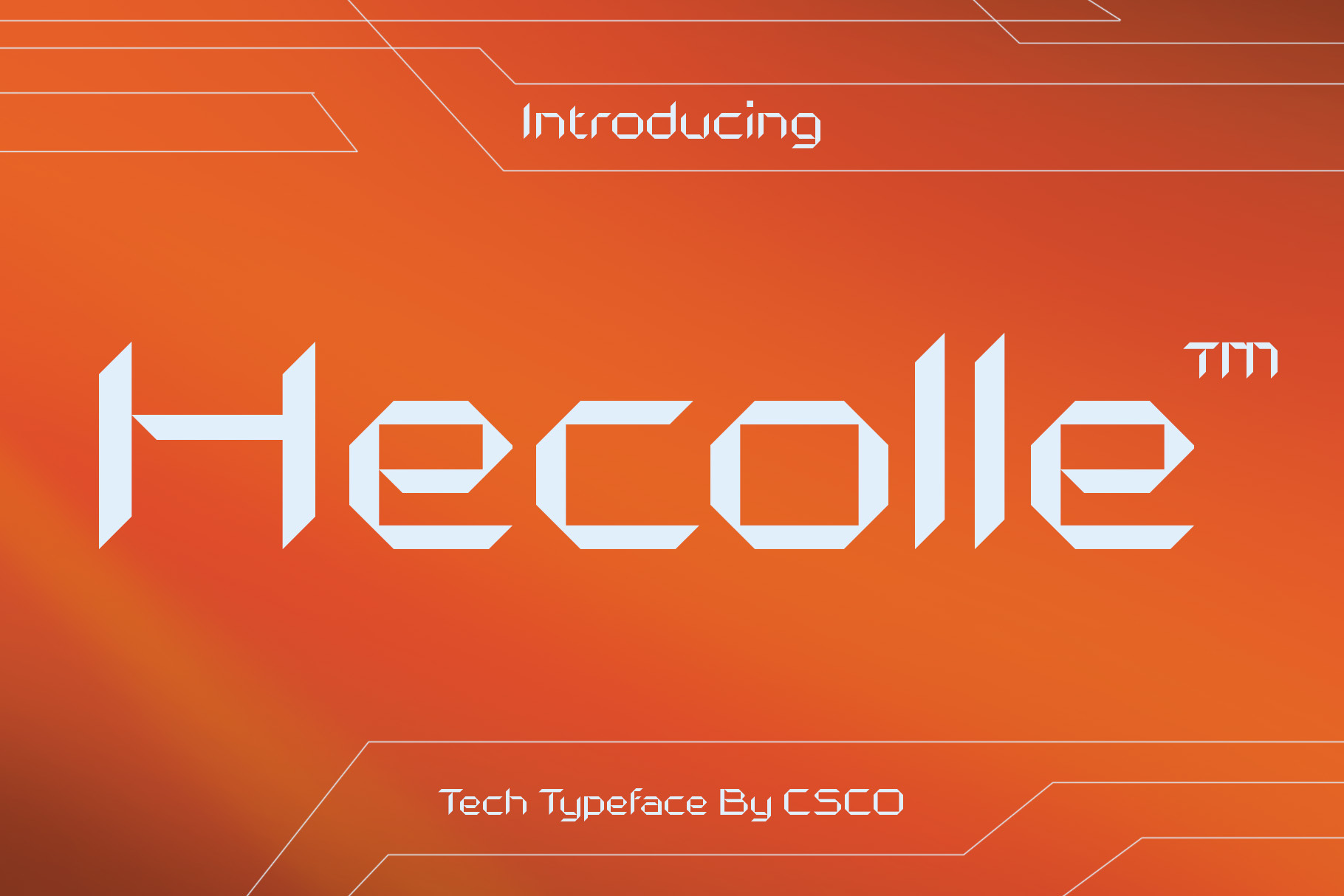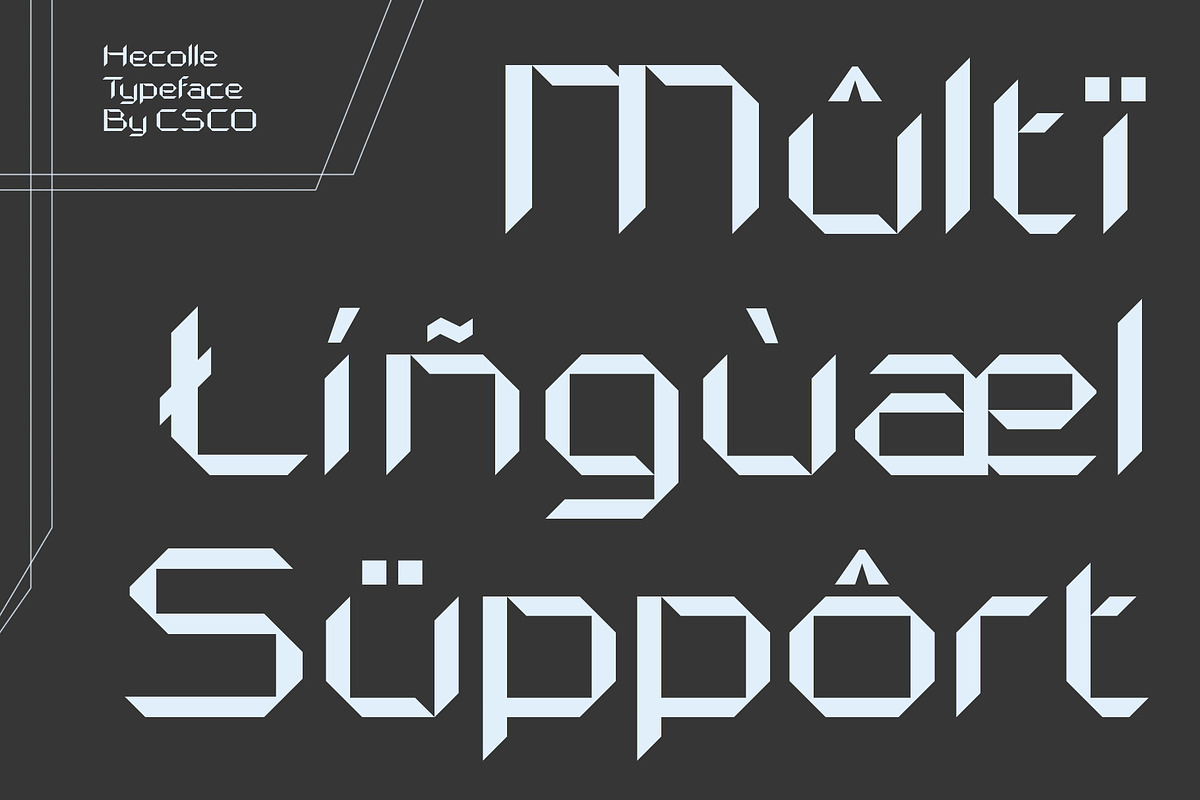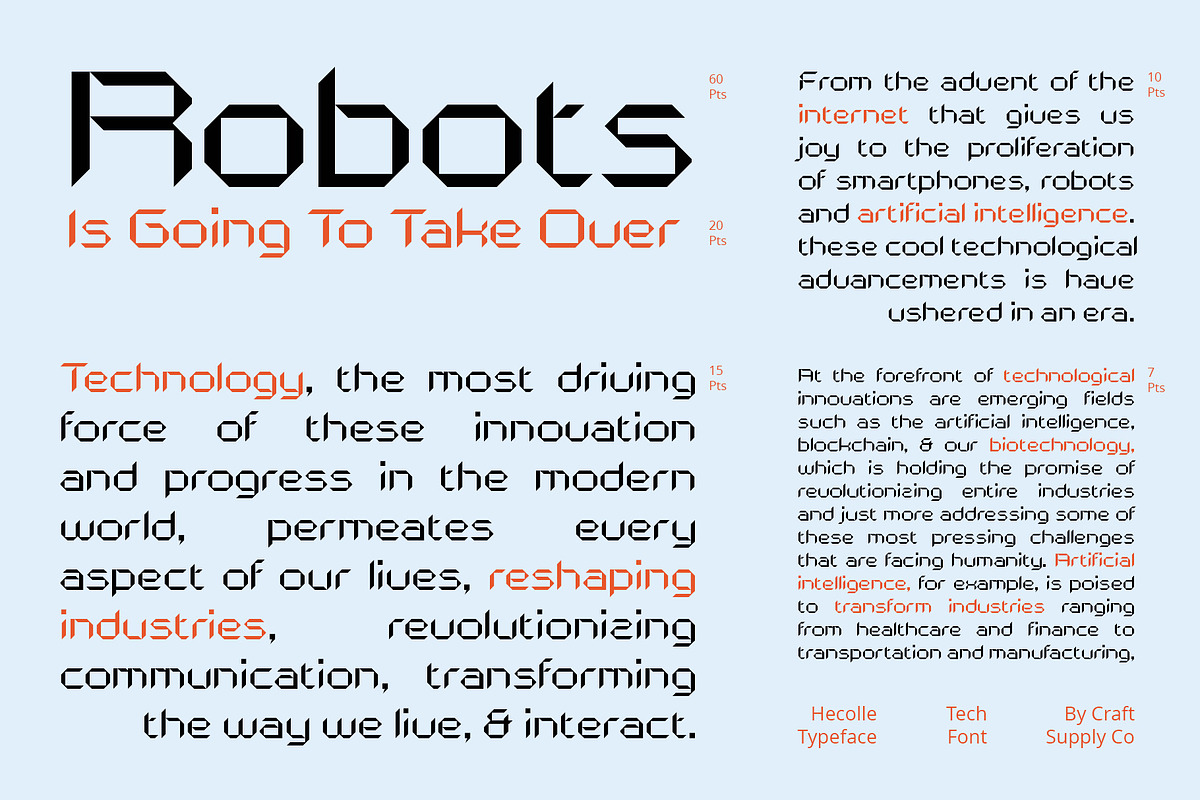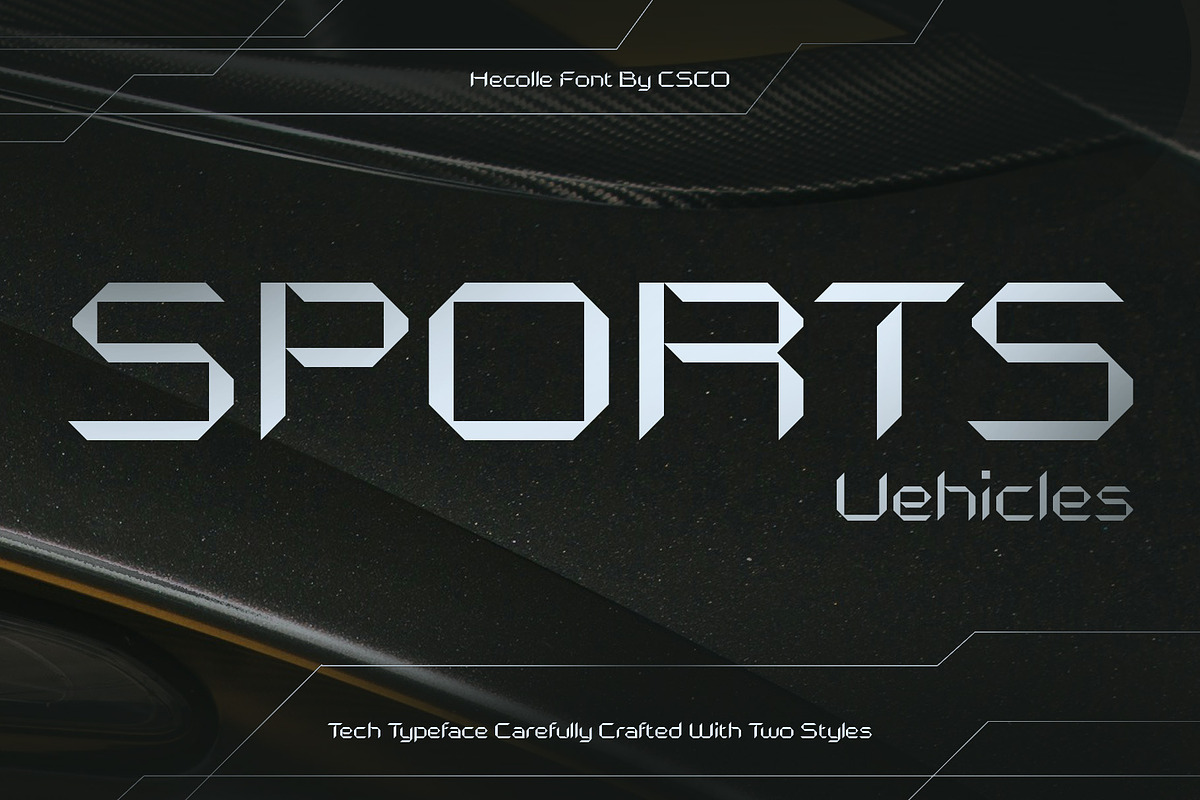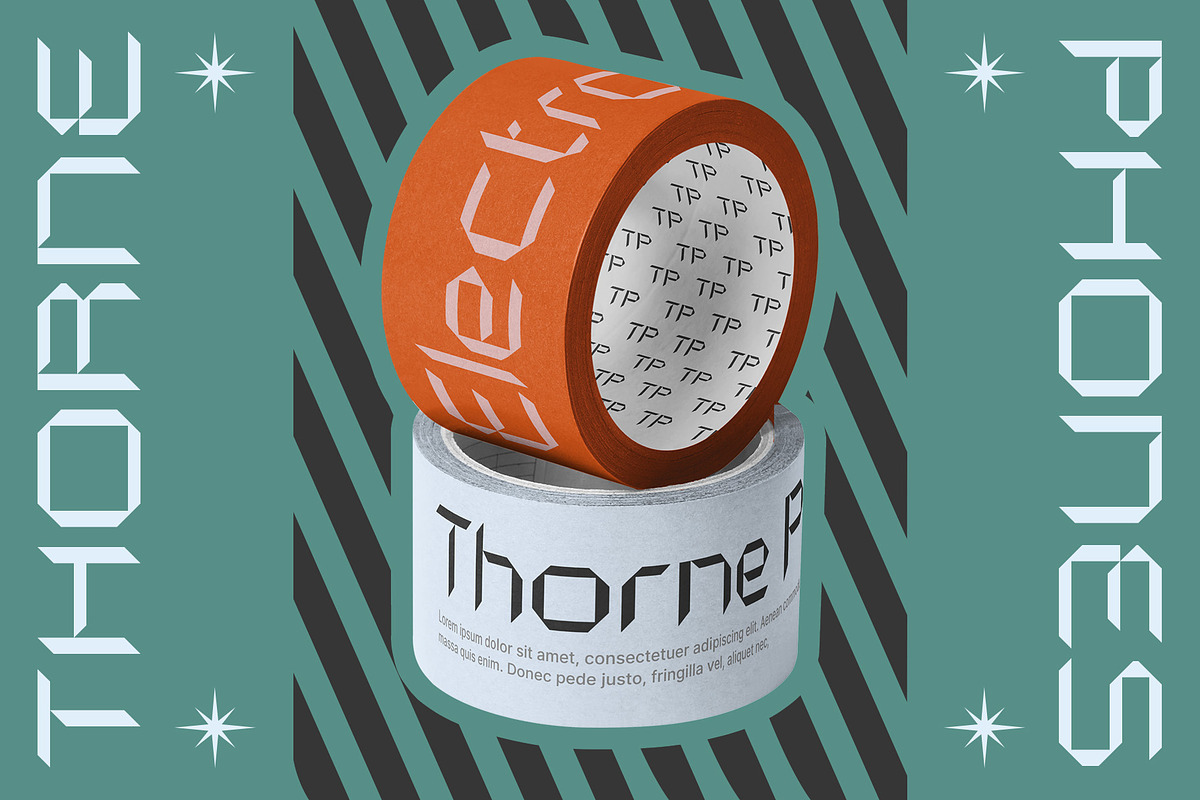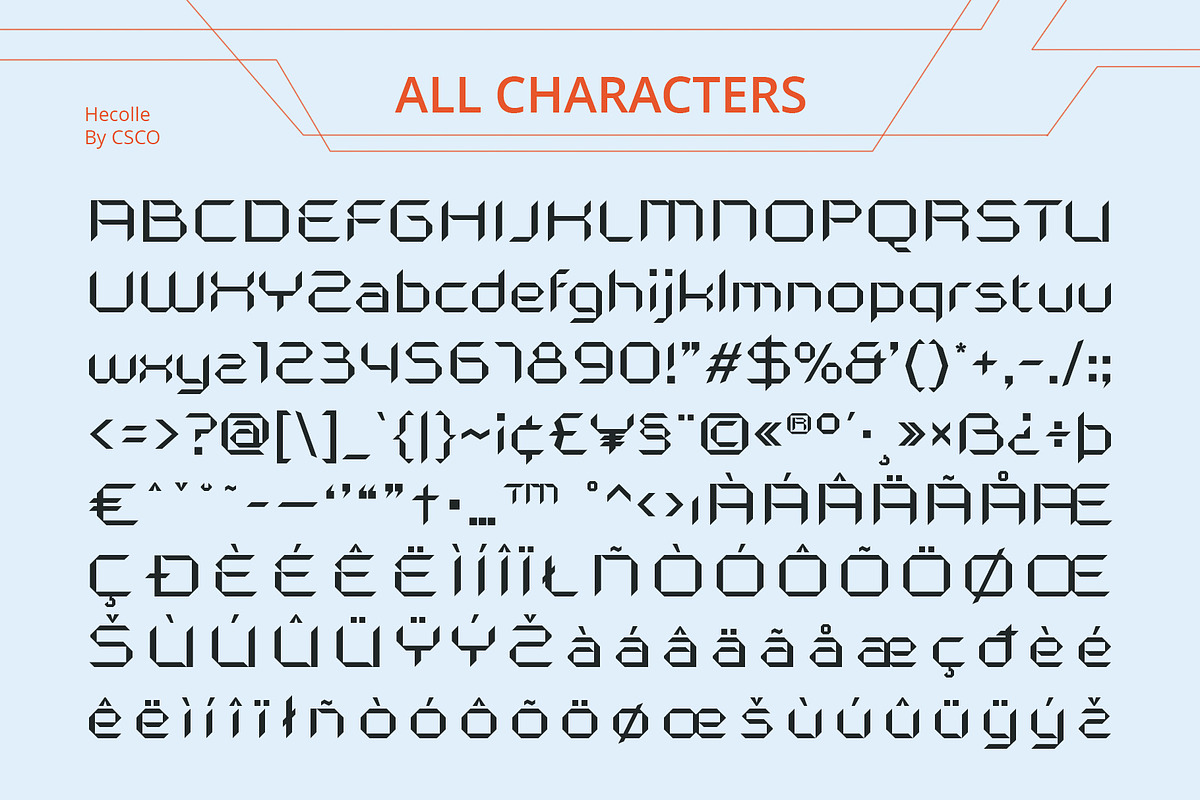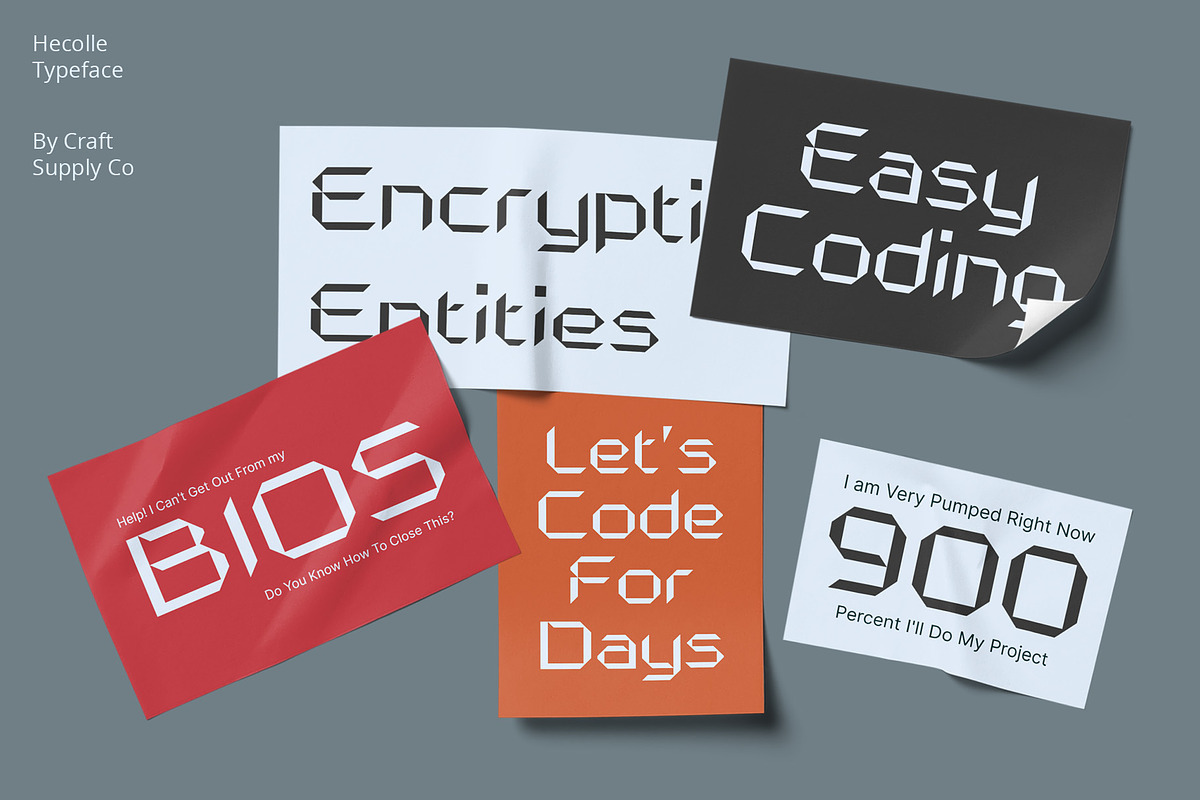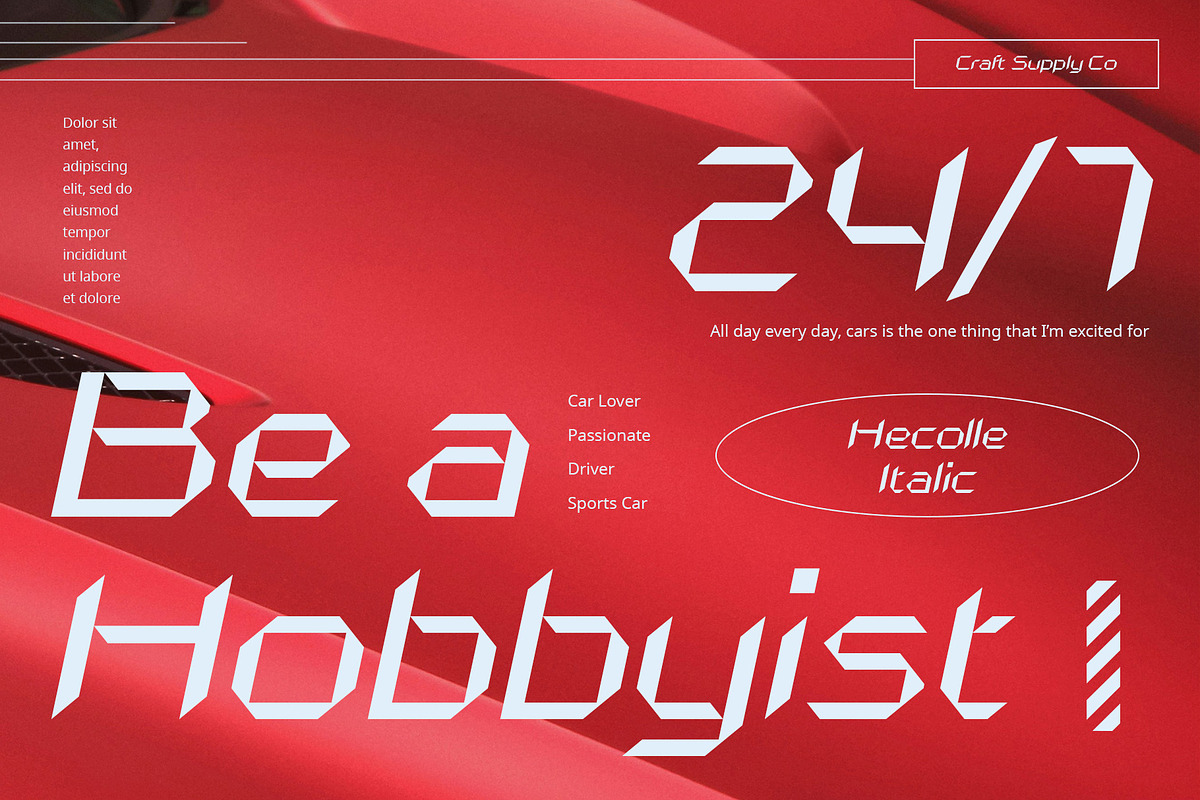
Hecolle – Techno Typeface
Hecolle: Techno Typeface Embracing Futuristic Geometry
Inspired by Technology and Techno Music Hecolle draws inspiration from the dynamic worlds of technology and techno music, infusing its design with futuristic energy and modernity display.
Geometric Elegance in Every Character Each character of This font embodies geometric elegance, creating a visually striking display font that resonates with the sleek lines of modern technology.
Futuristic Vibes for Modern Designs With its futuristic vibes, This is the perfect choice for modern designs seeking to convey innovation and forward-thinking concepts. Its geometric shapes evoke a sense of progress and advancement.
Bringing Techno to Typography This font bridges the gap between technology and typography, bringing the pulsating beats and futuristic aesthetics of techno music into the realm of type design. Its geometric form and sleek lines reflect the rhythm and energy of the techno genre.
Where Geometry Meets Futurism This is a techno typeface that embodies the essence of futurism and modernity. Inspired by technology and techno music, its geometric elegance and futuristic vibes make it an ideal choice for modern designs seeking to convey innovation and forward-thinking concepts.
- Hecolle Regular
- Hecolle Italic